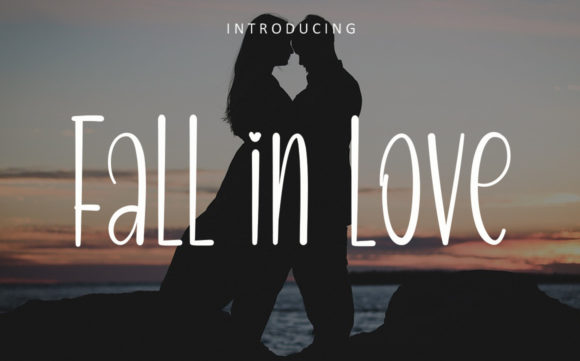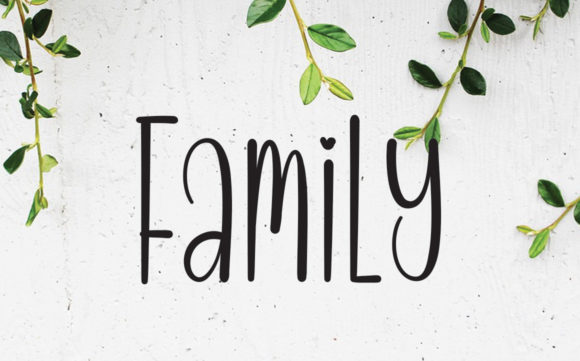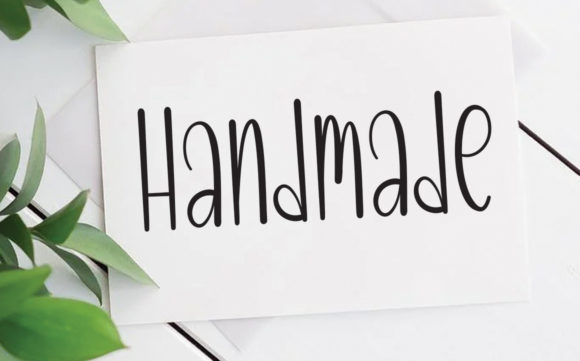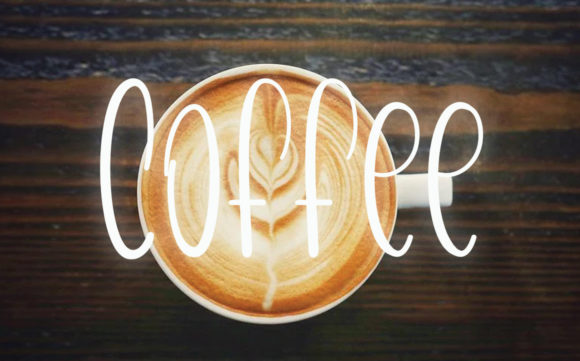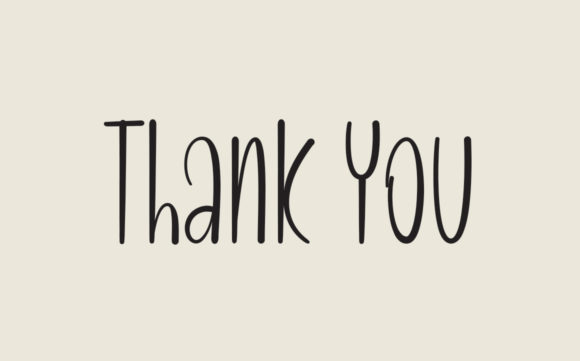
Fall in Love Font
About Fall in Love Font
“Fall in Love” is a captivating and flowing handwritten font crafted to bring beauty and charm to a diverse range of design projects. Whether you’re working on wall displays, wedding invitations, social media post logos, advertisements, product packaging, product designs, labels, photography watermarks, invitations, stationery, or any project that demands impressive typography, “Fall in Love” stands as a versatile choice that infuses sophistication and a touch of romance into your creations.
This font’s allure lies in its flowing and handcrafted style, adding a sense of warmth and personal touch to your designs. The graceful strokes and elegant curves of “Fall in Love” make it an ideal selection for projects that seek both style and a heartfelt touch.
Adapting seamlessly to various design contexts, “Fall in Love” is suitable for a multitude of applications. Whether you’re designing for social media, creating elegant invitations, or developing a distinctive watermark for your photography, this font offers an elegant and visually appealing solution.
Its compatibility with wall displays, advertisements, and product packaging showcases the font’s versatility, making it a valuable asset for creating a cohesive and sophisticated brand identity.
Choose “Fall in Love” when you want to infuse your projects with a beautiful and flowing handwritten aesthetic. Let this font be the key to creating designs that not only impress but also exude a timeless sense of beauty and refined charm, particularly suitable for romantic or emotionally resonant projects.